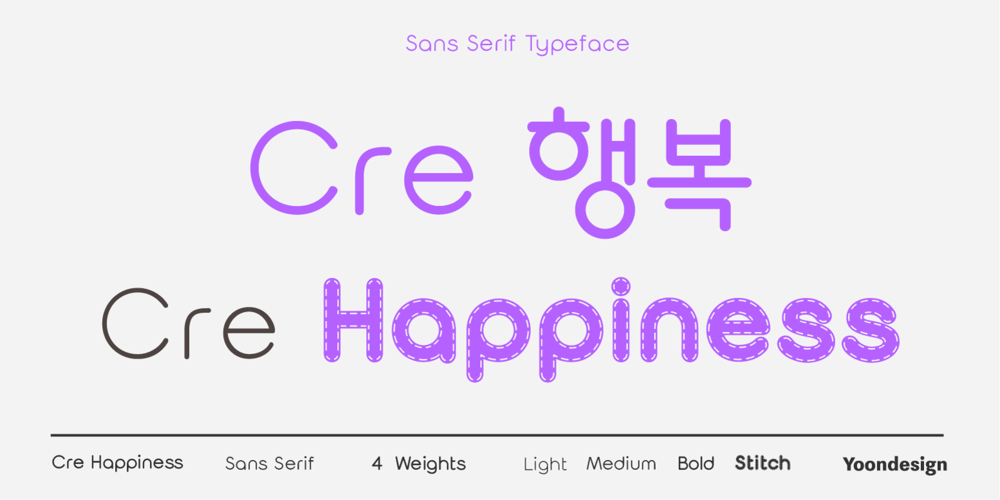
Cre Happiness Font Family was designed by Yoon Design Team and published by Yoon Design. Cre Happiness contains 4 styles and family package options. Cre Happiness Family is modern san-serif style but its aim was to give new impression of style. Especially Bold type incorporates the decorative accolades from stitch styles of handcraft into a Modern san-serif typeface. As a result, the font has a cute, homely character to it. This font family has 4 styles and it is particularly good for large displays/headlines.